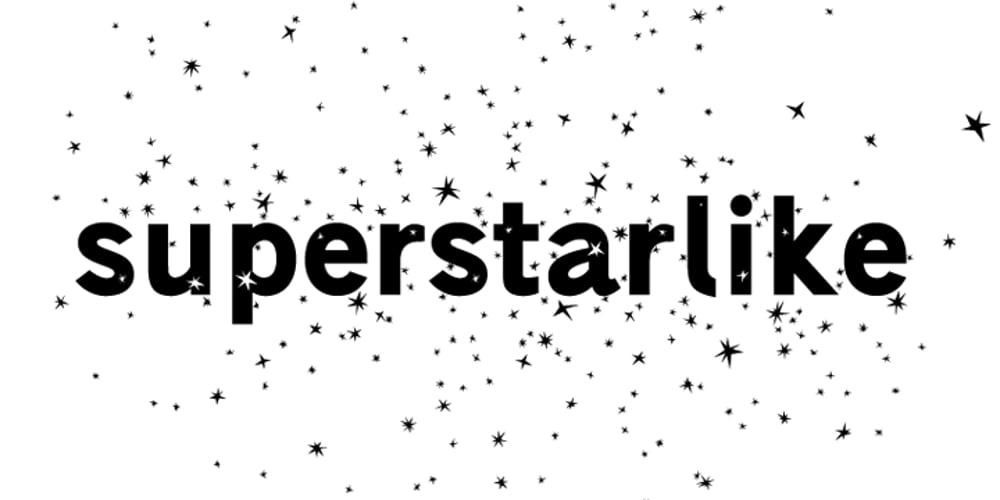
Superstarlike
Superstarlike font
Superstarlike Font Family was designed by published by studiocharlie. Superstarlike contains 2 styles and family package options. Developed from Superbastone and projected to be used with all the weights of Superbastone. The letters appear under a sky of stars. It’s ideal for greeting cards, or showbiz applications.